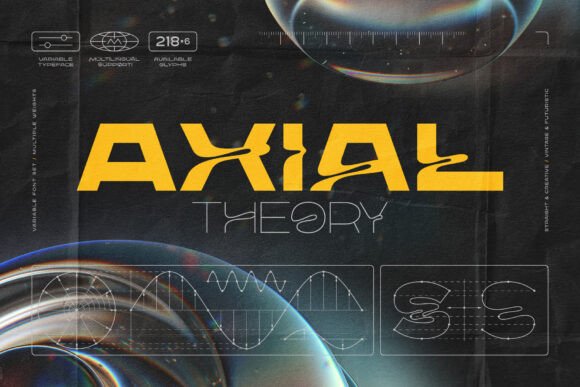
Introducing Axial Theory: The Retrofuturistic Font That’s Out of this World
The Axial Theory Advantage
Axial Theory is a retrofuturistic font set that includes three weights, three width variations, and an infinitely flexible variable font. Its nicely curved letterforms bring an original vibe to your text, making it perfect for designers, crafters, and creative hobbyists looking to add a touch of personality to their work.
Key Features of Axial Theory
- Three weights and three width variations for ultimate flexibility
- Infinitely flexible variable font for precise control
- Nicely curved letterforms for a unique, retrofuturistic look
- Multilingual support for a wide range of languages
- Simple and creative versions of each letter, accessible through uppercase and lowercase typing
What I Love About Axial Theory ✨
- ✅ The font’s versatility: with three weights, three widths, and a variable font, the possibilities are endless.
- ✅ The unique, curved letterforms that give Axial Theory its distinctive retrofuturistic feel.
- ✅ The multilingual support, which makes it easy to use Axial Theory for international projects.
- ✅ The simple and creative versions of each letter, which add an extra layer of flexibility to the font.
- ⚠️ Some users may find the font’s retrofuturistic style too bold or attention-grabbing for certain projects.
- ⚠️ The font’s curved letterforms may not be suitable for very short or very long texts.
The Story Behind Axial Theory
Axial Theory was designed with the goal of creating a font that would evoke a sense of retrofuturism, a blend of old and new, past and future. The designer drew inspiration from classic sci-fi movies, retrofuturistic architecture, and vintage typography. The result is a font that’s both nostalgic and forward-thinking, perfect for designers looking to add a touch of personality to their work.
Q: Is Axial Theory suitable for body text?
A: While Axial Theory is a beautiful font, its curved letterforms may not be suitable for long body text. It’s best used for headlines, titles, or short paragraphs.